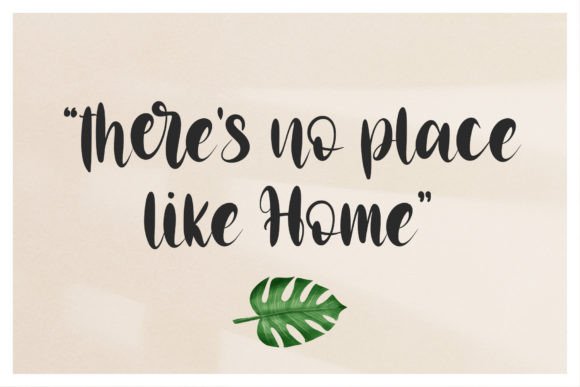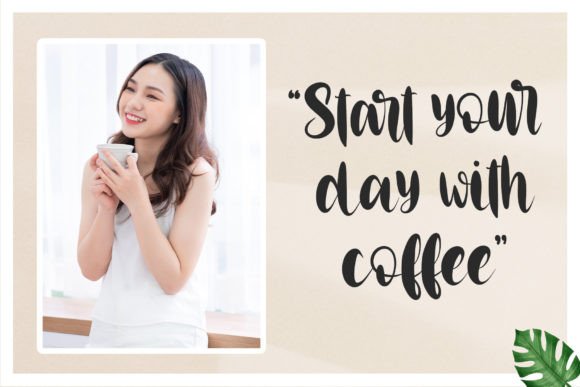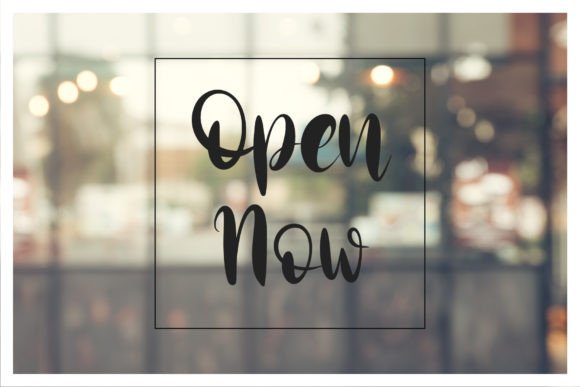
About Anglina Farmhouse Font Download
The Anglina Farmhouse Font Download is a romantic and sweet calligraphy typeface crafted to bring elegance and luxury to your designs. With graceful characters that dance along the baseline, it creates a refined handwritten feel that is both timeless and modern. Because it is PUA encoded, you can access all the beautiful glyphs, swashes, and ligatures with ease, giving you endless creative freedom.
A Romantic Calligraphy Script with Elegance
Anglina Farmhouse blends classic calligraphic strokes with modern charm. Unlike ordinary handwritten fonts, this Anglina Farmhouse script font adds sophistication and personality, making it perfect for projects where beauty and clarity must come together.
Perfect for Invitations and Wedding Designs
Event stationery always feels more meaningful with elegant calligraphy. The Anglina Farmhouse Font is excellent for wedding invitations, engagement cards, thank you notes, and anniversary announcements. Moreover, its romantic flow ensures that every message looks heartfelt and unique.
Branding and Packaging with Anglina Farmhouse Font
Typography helps shape a brand’s identity, and the Anglina Farmhouse handwritten font is perfect for boutique logos, product packaging, and luxury branding. In addition, its graceful style creates a premium and timeless brand image that appeals to modern audiences.
Posters, Quotes, and Creative Displays
The Anglina Farmhouse Font Download also works beautifully for posters, inspirational quotes, and signage. Therefore, it is suitable for both small-scale and large-scale projects, maintaining elegance and readability across different uses.
In today’s digital-first world, fonts play a crucial role in content creation. The Anglina Farmhouse typeface is ideal for Instagram posts, Pinterest graphics, YouTube thumbnails, and blog headers. Its stylish handwritten look ensures that your digital presence feels polished and romantic.
Why Designers Choose Anglina Farmhouse Typeface
Designers love fonts that balance artistic beauty with practical usability. Many calligraphy scripts lose clarity at smaller sizes, but the Anglina Farmhouse handwritten script stays elegant and legible. This makes it reliable for professionals and hobbyists alike.
Add Romantic Elegance to Your Projects Today
If you want a handwritten calligraphy script that feels romantic, luxurious, and versatile, the Anglina Farmhouse Font Download is the right choice. From invitations and logos to posters and digital projects, it adds timeless beauty to every design. Finally, download Anglina Farmhouse today and bring sophistication and romance to your creative work.